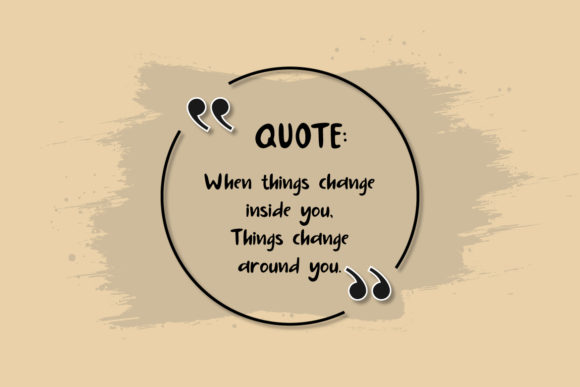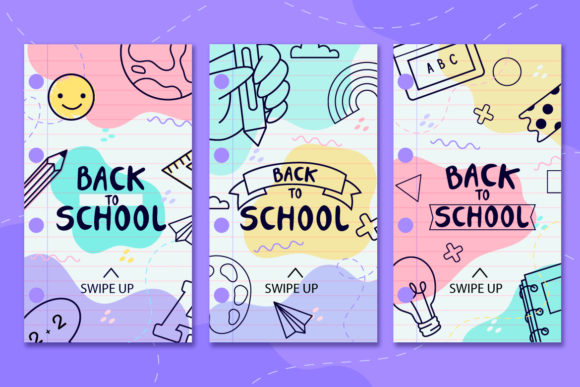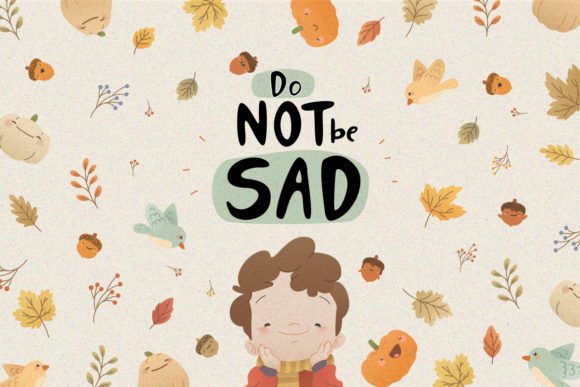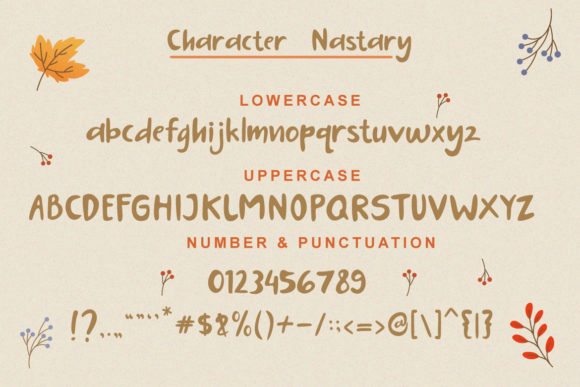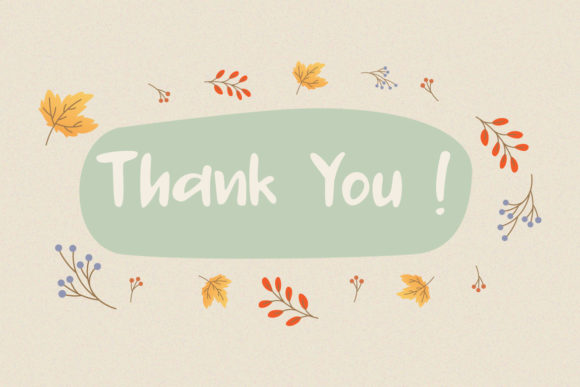
Introduction to Nastary Font
Nastary is a unique and cute display font.
Whether you are using it for cartoon-related designs, childrenโ€™s games, quotes, titles, brand names, book covers, posters, or just any creation that requires a touch of beauty, this font is a great choice .
Key Features of Nastary Font